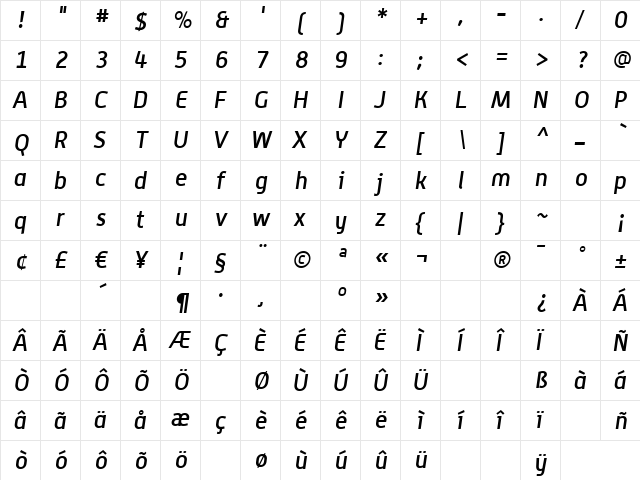
Alwyn MediumOblique
Design Context for Alwyn Typeface
Alwyn is a composed and adaptable typeface that performs quietly and consistently across a wide range of design contexts. Its italic angle brings a sense of urgency and motion to the letterforms.
Pro Tip: Try Alwyn for annotation and caption copy alongside an upright companion — the contrast in angle creates a dynamic but ordered typographic system.